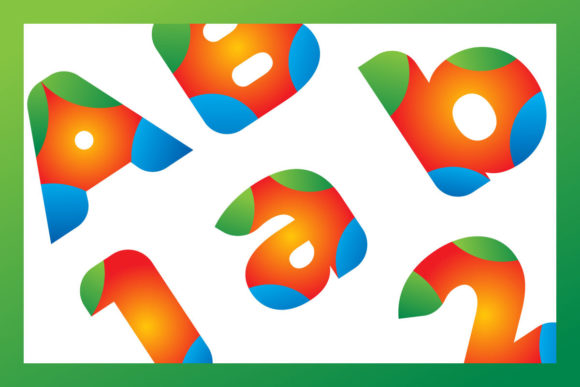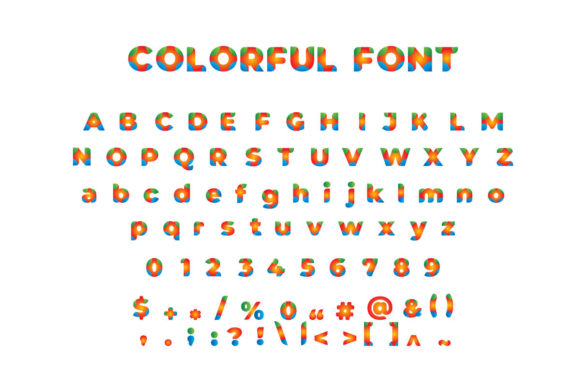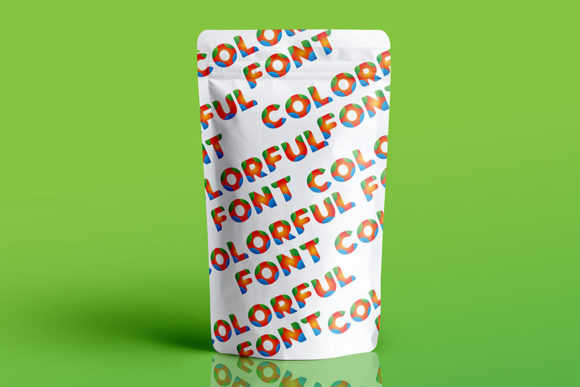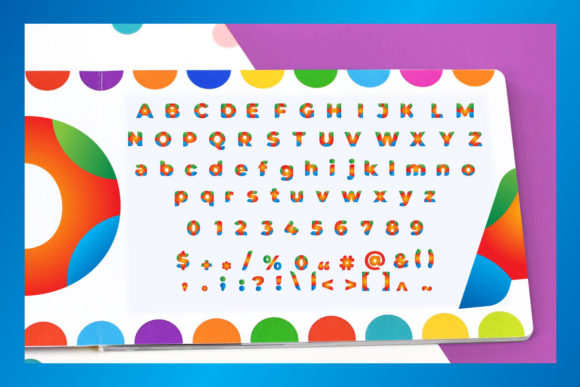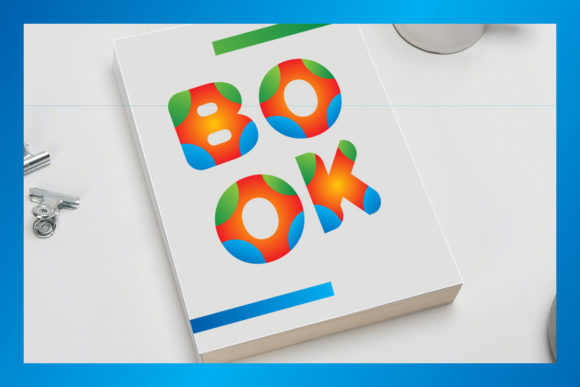
Introducing Colorful Font: The Ultimate Design Game-Changer
Are you tired of using the same old fonts in your designs? Look no further! Colorful Font is here to revolutionize the way you approach typography. With its dynamic feel and unique charm, this vibrant font is sure to take your designs to the next level. In this article, we’ll explore the world of Colorful Font and discover how it can help you create stunning designs that stand out from the crowd.
The Power of Colorful Font
Colorful Font is more than just a font – it’s an experience. Its dynamic feel and colorful aesthetic make it perfect for adding a pop of personality to any design. Whether you’re working on a book title, quote, branding project, or fashion design, Colorful Font is the perfect choice. Its versatility knows no bounds, and it’s suitable for a wide range of applications, including:
- Book titles and covers
- Quotes and inspirational messages
- Branding and logo design
- Clothing and t-shirt designs
- Fashion and magazine layouts
Unleash Your Creativity with Colorful Font
One of the best things about Colorful Font is its ability to inspire creativity. Its unique charm and playful vibe make it the perfect catalyst for bringing your design ideas to life. Whether you’re a seasoned designer or a crafty DIY enthusiast, Colorful Font is sure to spark your imagination and help you create something truly special.
Imagine being able to add a splash of color and personality to your designs, making them instantly stand out from the crowd. With Colorful Font, you can do just that. Its bold and vibrant aesthetic is sure to grab attention and leave a lasting impression on your audience.
Tips and Tricks for Using Colorful Font
To get the most out of Colorful Font, here are a few tips and tricks to keep in mind:
- Experiment with different colors and combinations to find the perfect look for your design.
- Use Colorful Font to add a pop of personality to your designs, but be mindful of legibility and readability.
- Pair Colorful Font with other fonts to create a unique and eye-catching typography combination.
- Don’t be afraid to get creative and try new things – Colorful Font is all about experimentation and self-expression!
The Benefits of Using Colorful Font
So why choose Colorful Font for your design projects? Here are just a few benefits of using this amazing font:
- Instant recognition: Colorful Font is sure to grab attention and make your designs stand out from the crowd.
- Versatility: Colorful Font is suitable for a wide range of applications, from book titles to fashion designs.
- Creativity booster: Colorful Font is the perfect catalyst for sparking your imagination and bringing your design ideas to life.
| Font Name | Colorful Font |
| Author | CraftDesign |
In conclusion, Colorful Font is a game-changer for designers and crafters alike. Its dynamic feel, unique charm, and versatility make it the perfect choice for adding a pop of personality to any design. Whether you’re working on a book title, branding project, or fashion design, Colorful Font is sure to inspire your creativity and help you create stunning designs that stand out from the crowd. So why wait? Give Colorful Font a try today and discover a world of limitless design possibilities!